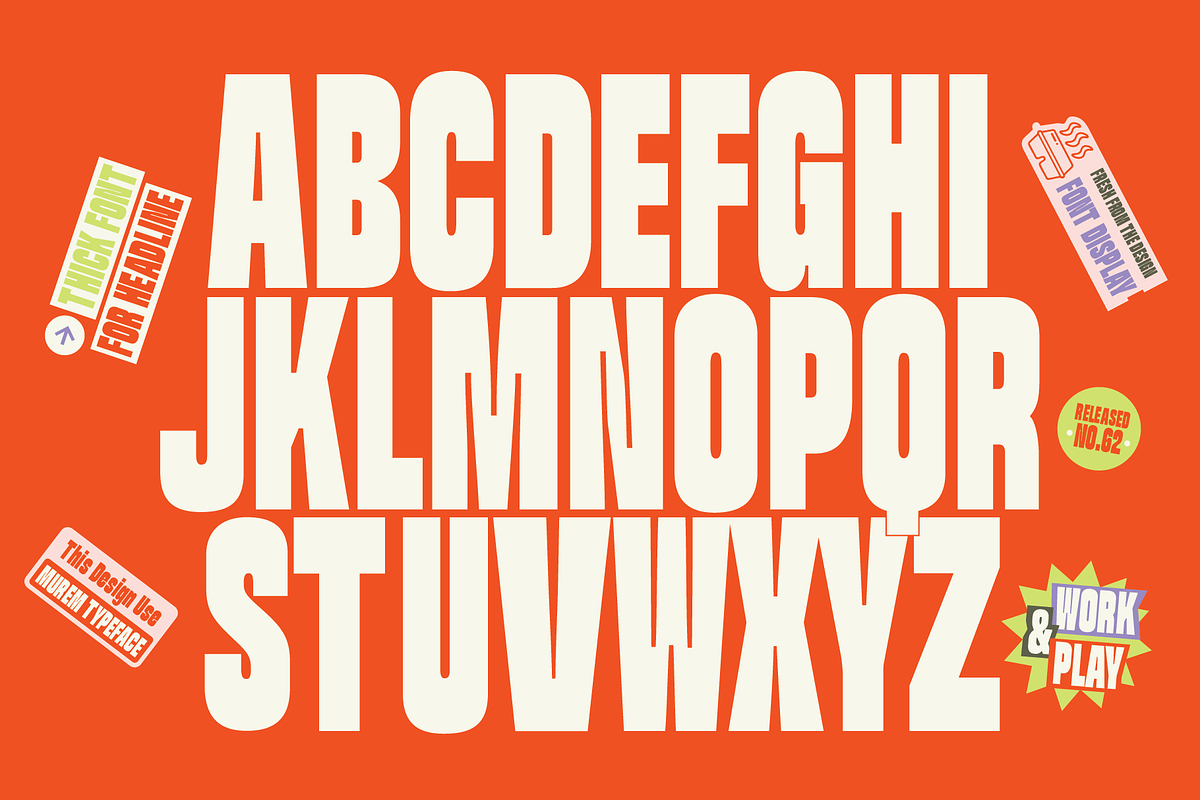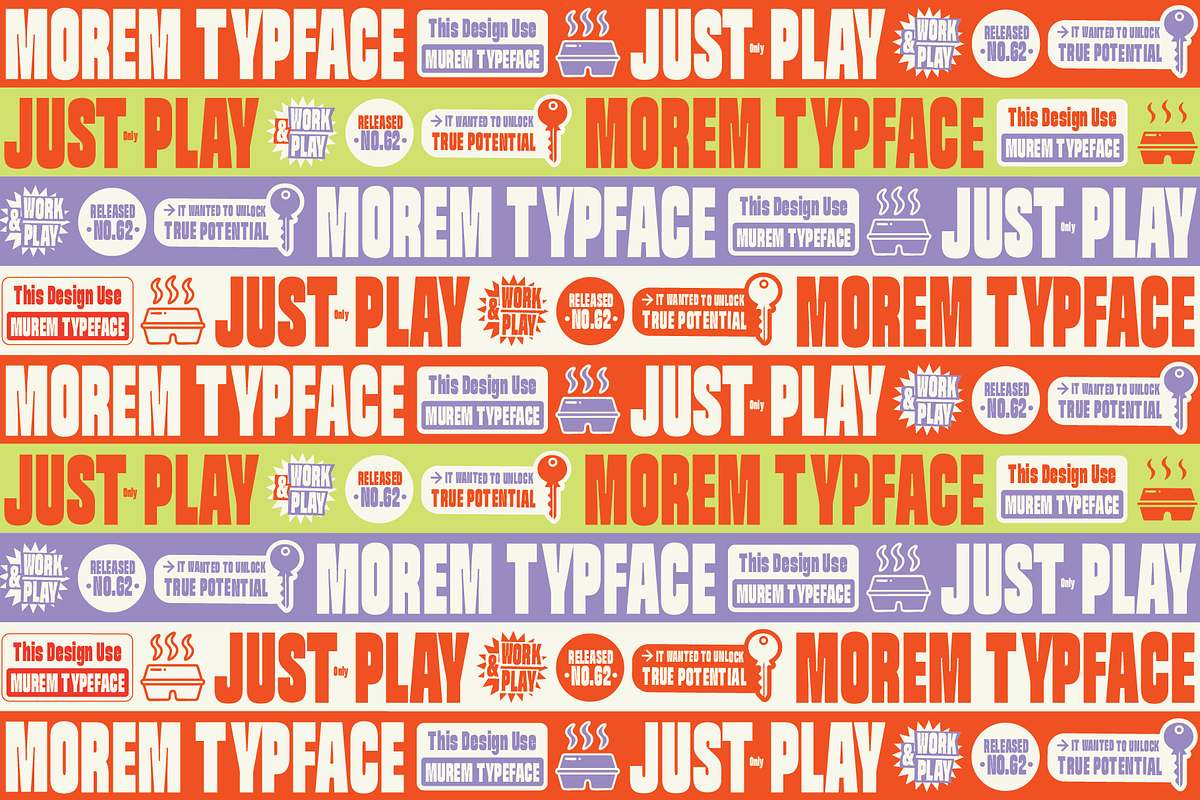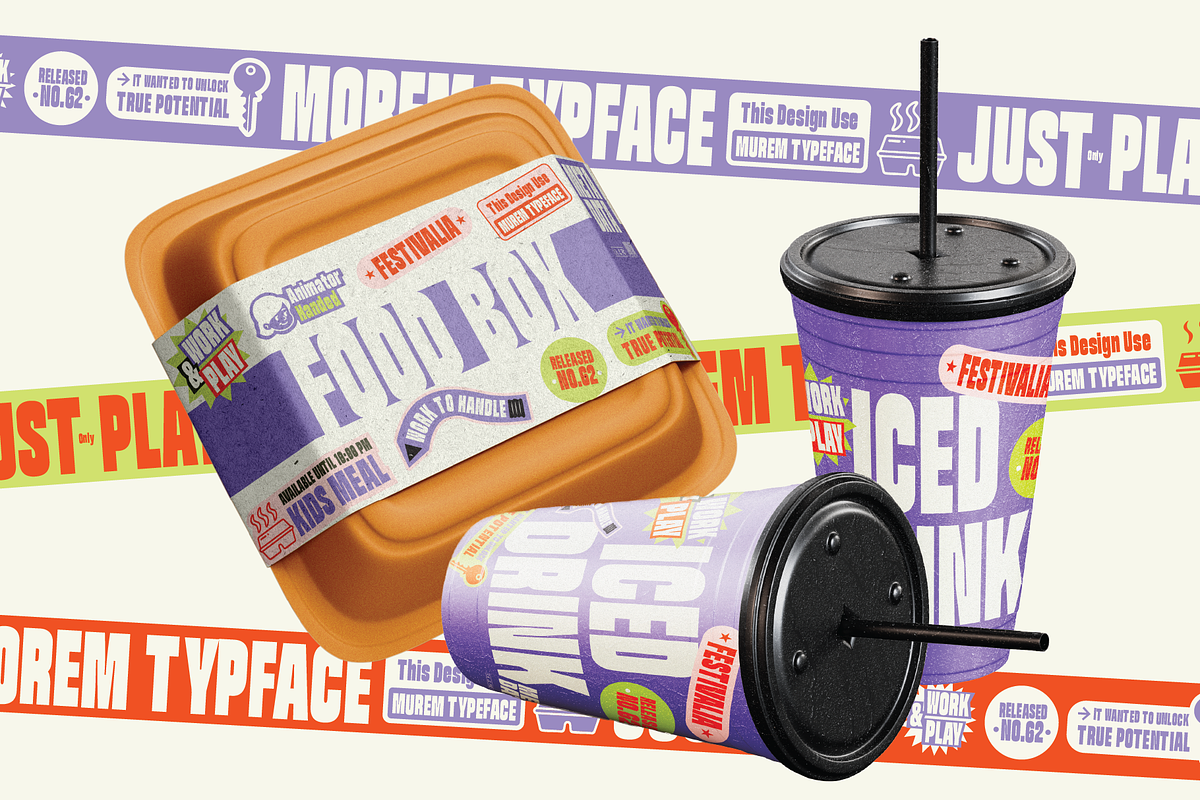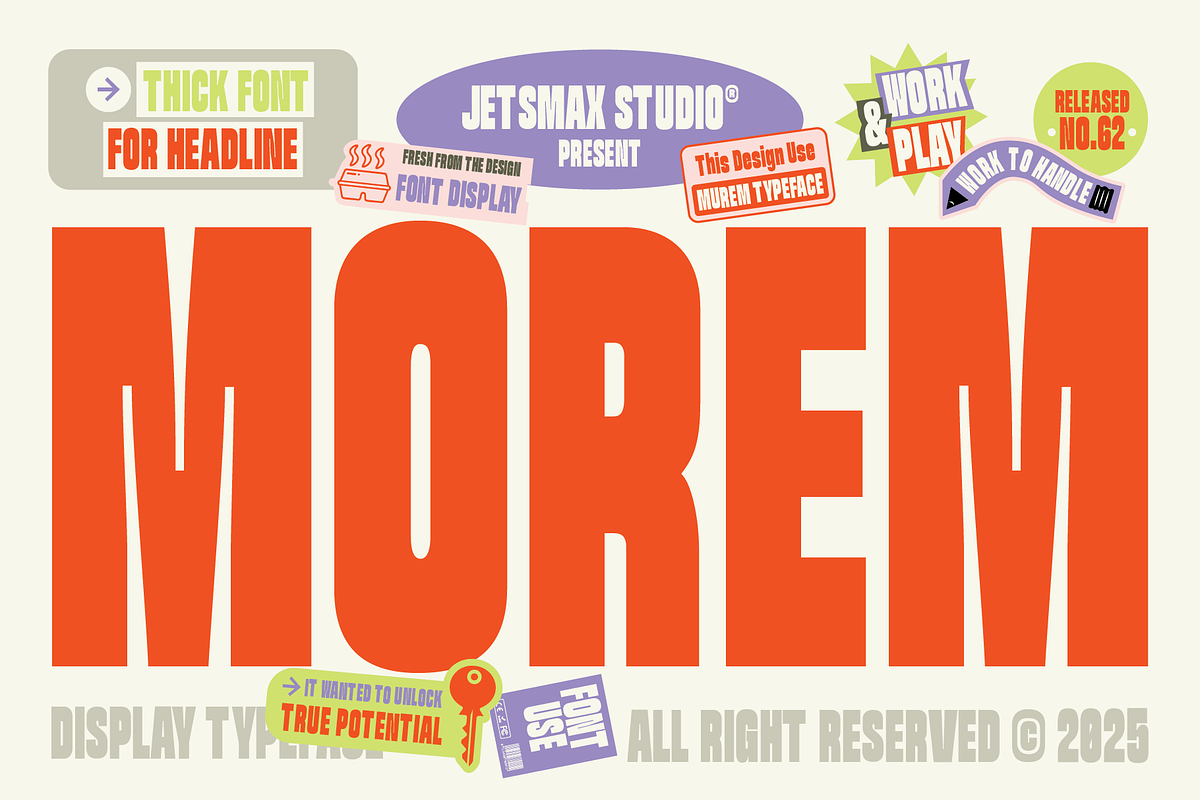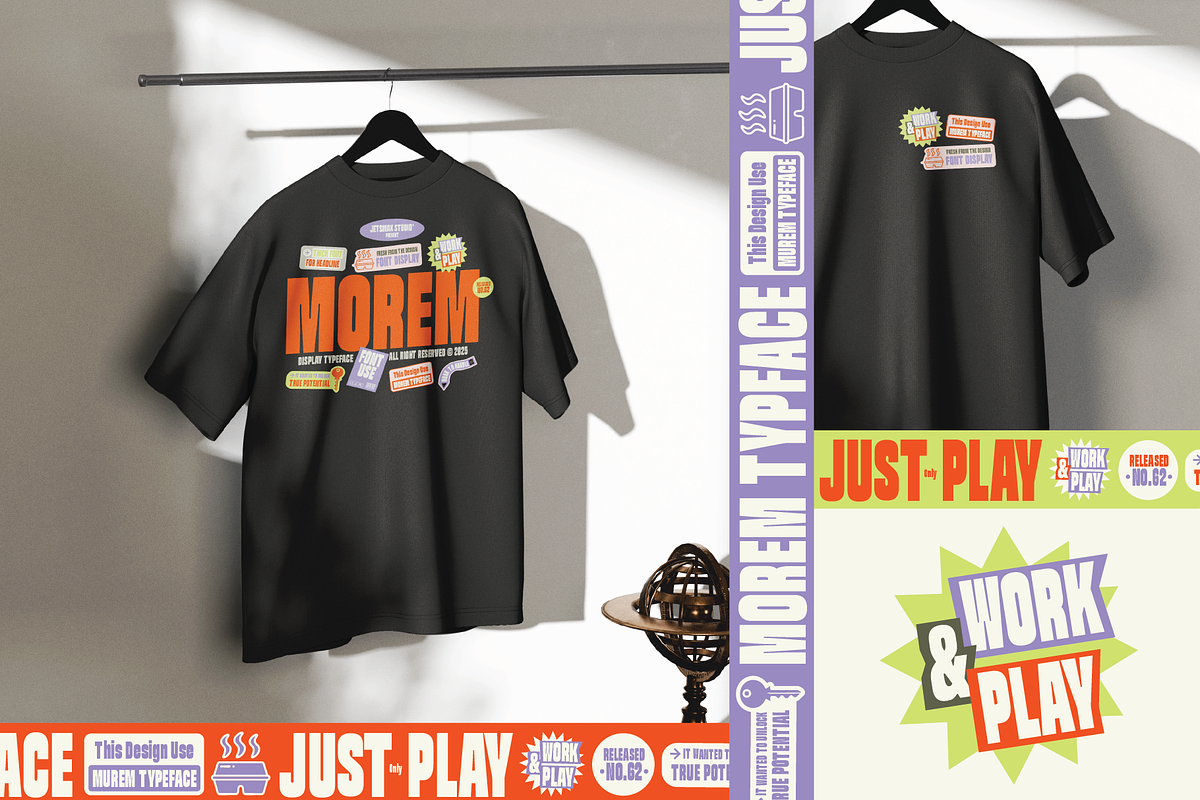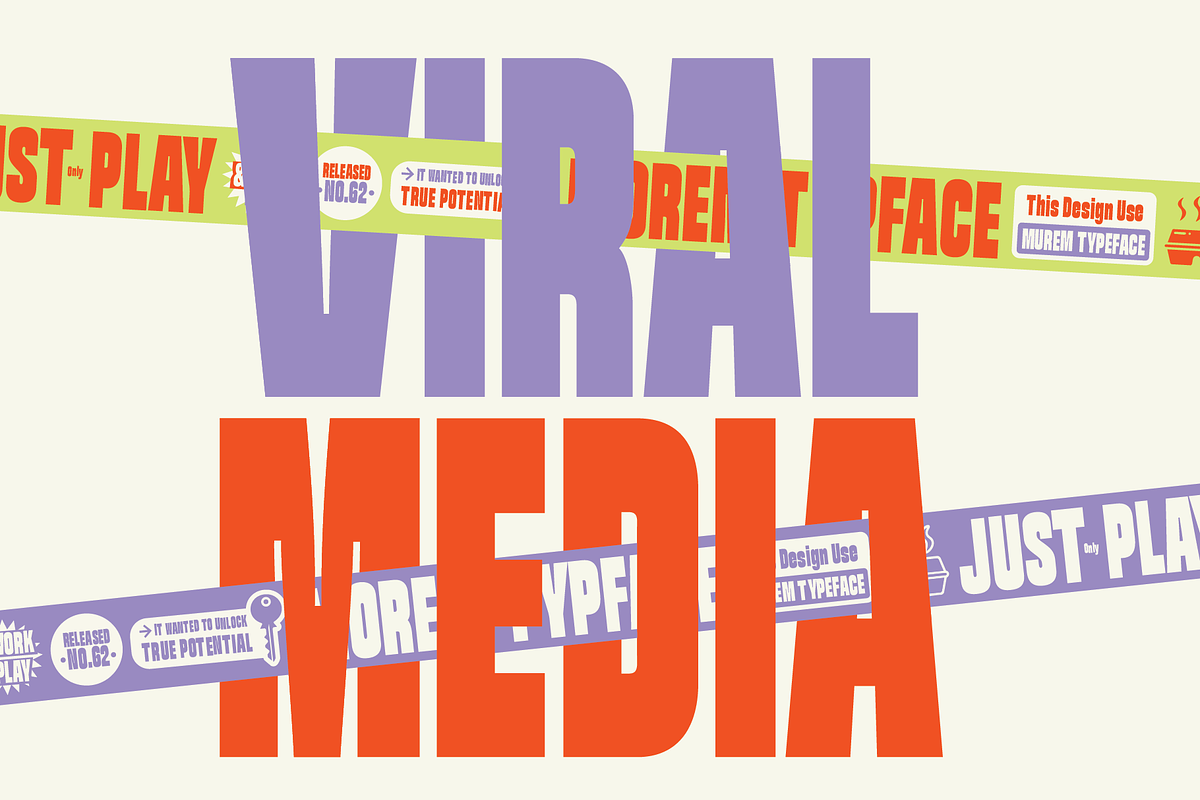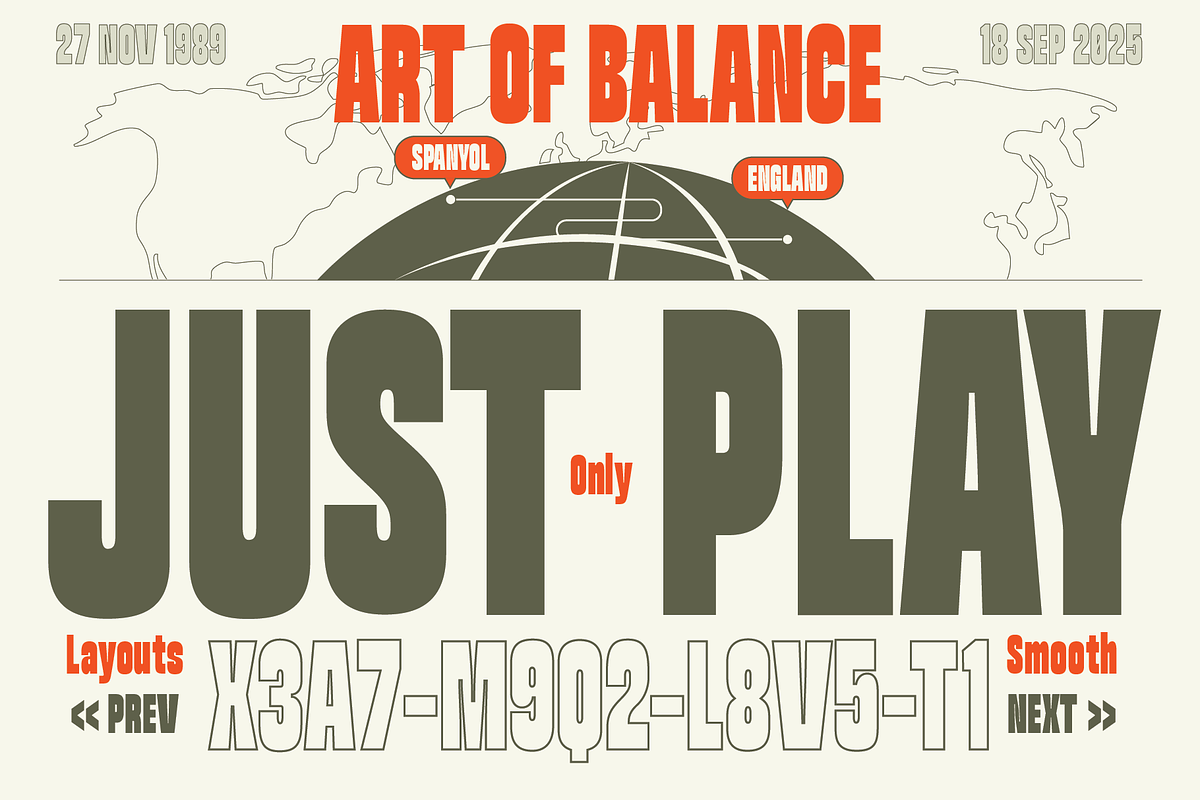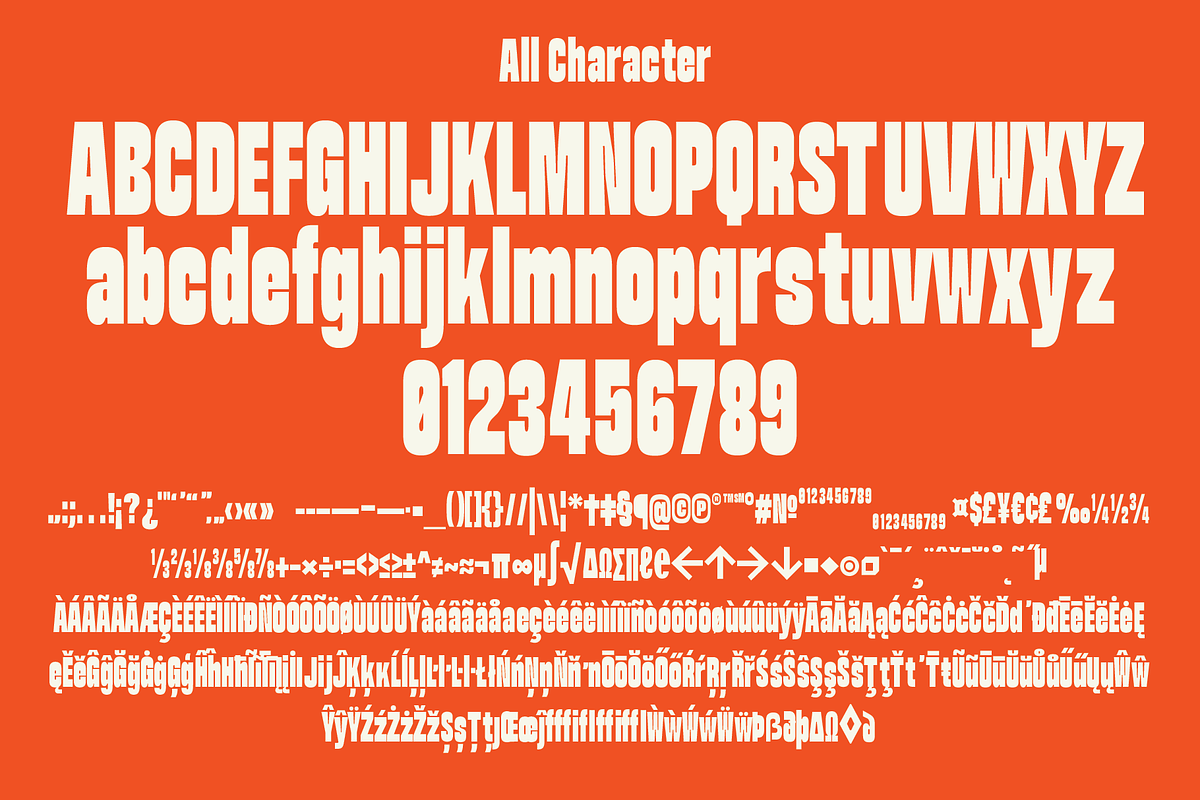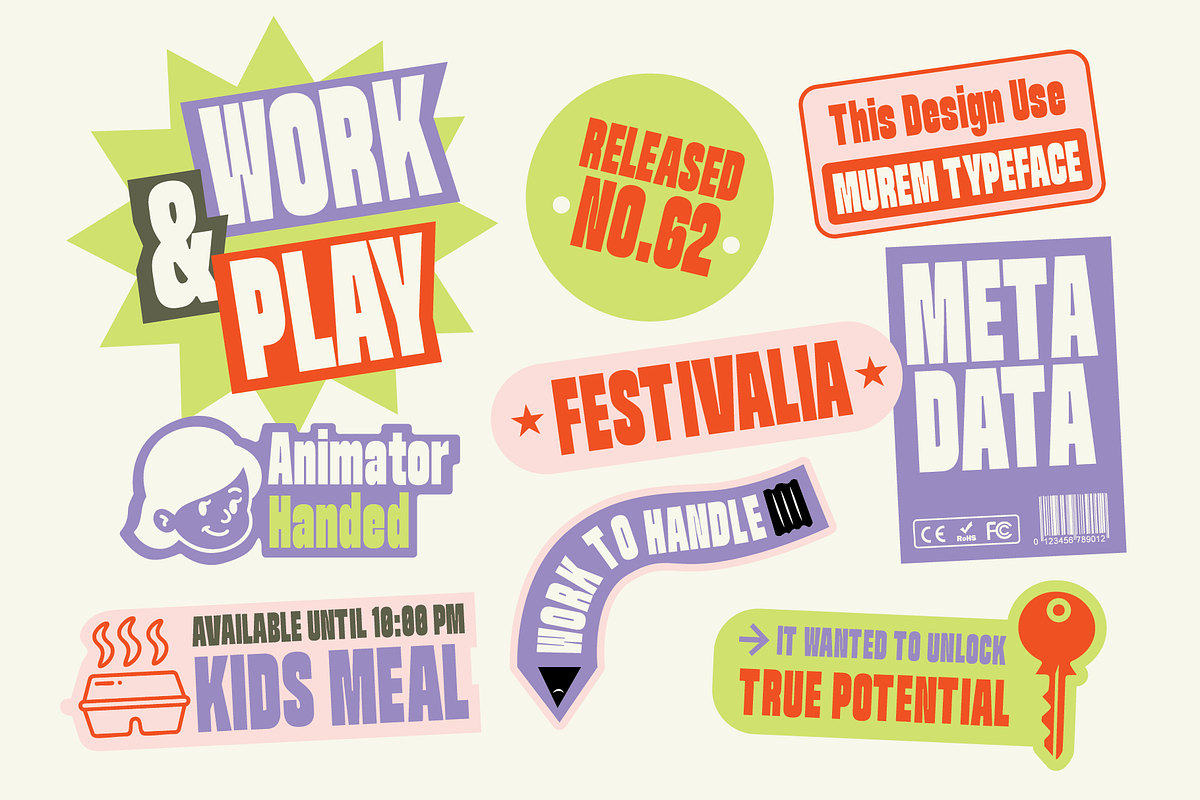
Morem Display Typeface
Morem is a bold typeface with a distinctive style. Its uniqueness lies in the heavier strokes at the top and bottom of each letter, creating a stable, strong, and solid impression. This design gives Morem a fresh typographic identity, making it perfect for titles, posters, branding, and graphic designs that aim to stand out.